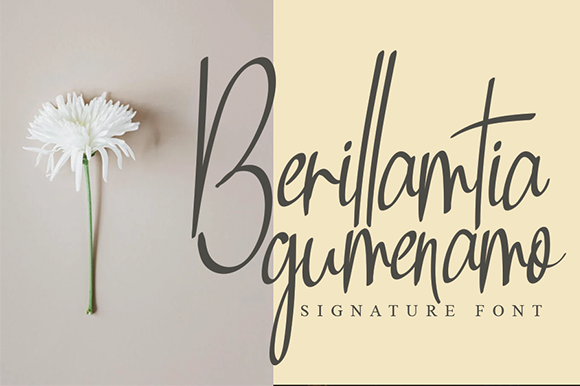
The Perfect Brush of Creativity: Berillamtia Font
Have you ever been brainstorming a new project, and suddenly, a spark of inspiration hits you? You grab a pen and start scribbling down ideas, the ink flowing freely as your imagination runs wild. This is exactly the kind of creative moment that the Berillamtia Font was born out of.
Developed using a brush pen, this modern and fun handwritten font is perfect for adding a personal touch to your designs. Whether you’re creating logos, branding materials, or social media graphics, Berillamtia Font is the perfect fit. Its clean and quirky style makes it a valuable asset for designers looking to add a unique twist to their work.
Berillamtia Font Key Features
- Font Family: Berillamtia Font is a script font family.
- Font Size: The font size ranges from 12 points to 72 points, with a maximum of 5 font sizes (Regular, Bold, Italic, Bold Italic, and Extra Bold).
- Resolution: Optimized for 300 DPI (dots per inch) and 72 DPI (dots per inch) resolutions.
- Unique Characteristics: Berillamtia Font features a unique, handwritten script style with elegant and flowing lines, making it suitable for creative and artistic purposes.
Designer Review: Berillamtia Font
First of all, I want to say that I’m impressed by the unique character set of the Berillamtia Font. The designer has clearly put a lot of effort into creating a distinctive and eye-catching font that is perfect for headings and titles. ✨ The bold lines and rounded edges give it a playful and whimsical feel that’s hard to resist. ✨
The font’s versatility is another strong point. It can be used in a variety of settings, from children’s books to fashion magazines, and still looks great. ✨ Additionally, the font is highly customizable, allowing users to adjust the size, color, and style to suit their needs.
However, there are a few limitations to consider. ⚠️ Firstly, the font’s legibility can be a bit of a issue, especially at smaller sizes. ⚠️ This can make it difficult to read, especially for those with visual impairments. ⚠️
- The font is not suitable for body text, and should only be used for headings and titles.
Overall, I think the Berillamtia Font is a great addition to any designer’s toolkit. While it may have some limitations, its unique character and versatility make it a valuable asset for any project that requires a bold and eye-catching font. ✨
The Berillamtia font is ideal for:
Alternatives to Berillamtia Font
Pacifico is a beautiful, elegant script font that is perfect for adding a touch of sophistication to your designs. It features a flowing, handwritten feel that works well for titles, headings, and quotes. Pacifico is a great alternative to Berillamtia Font for designers who want to add a sense of luxury and refinement to their work.
Comparison: While Berillamtia Font has a more modern and edgy feel, Pacifico is more classic and timeless. Pacifico is also more versatile and can be used in a wider range of designs, from fashion to food to travel.
Great Vibes is a modern script font that is perfect for designers who want to add a sense of fun and playfulness to their work. It features a flowing, handwritten feel with a touch of elegance and sophistication. Great Vibes is a great alternative to Berillamtia Font for designers who want to add a sense of energy and enthusiasm to their designs.
Comparison: While Berillamtia Font has a more edgy and avant-garde feel, Great Vibes is more playful and carefree. Great Vibes is also more suitable for designs that require a sense of movement and dynamism.
Lobster is a fun and playful script font that is perfect for designers who want to add a sense of whimsy and humor to their work. It features a bold, handwritten feel with a touch of elegance and sophistication. Lobster is a great alternative to Berillamtia Font for designers who want to add a sense of personality and charm to their designs.
What is the recommended font size for optimal readability with Berillamtia Font?
The recommended font size for optimal readability with Berillamtia Font is between 12 and 14 points, depending on the intended use and viewing distance. You can adjust the font size to suit your specific needs, but keep in mind that smaller font sizes may compromise readability.